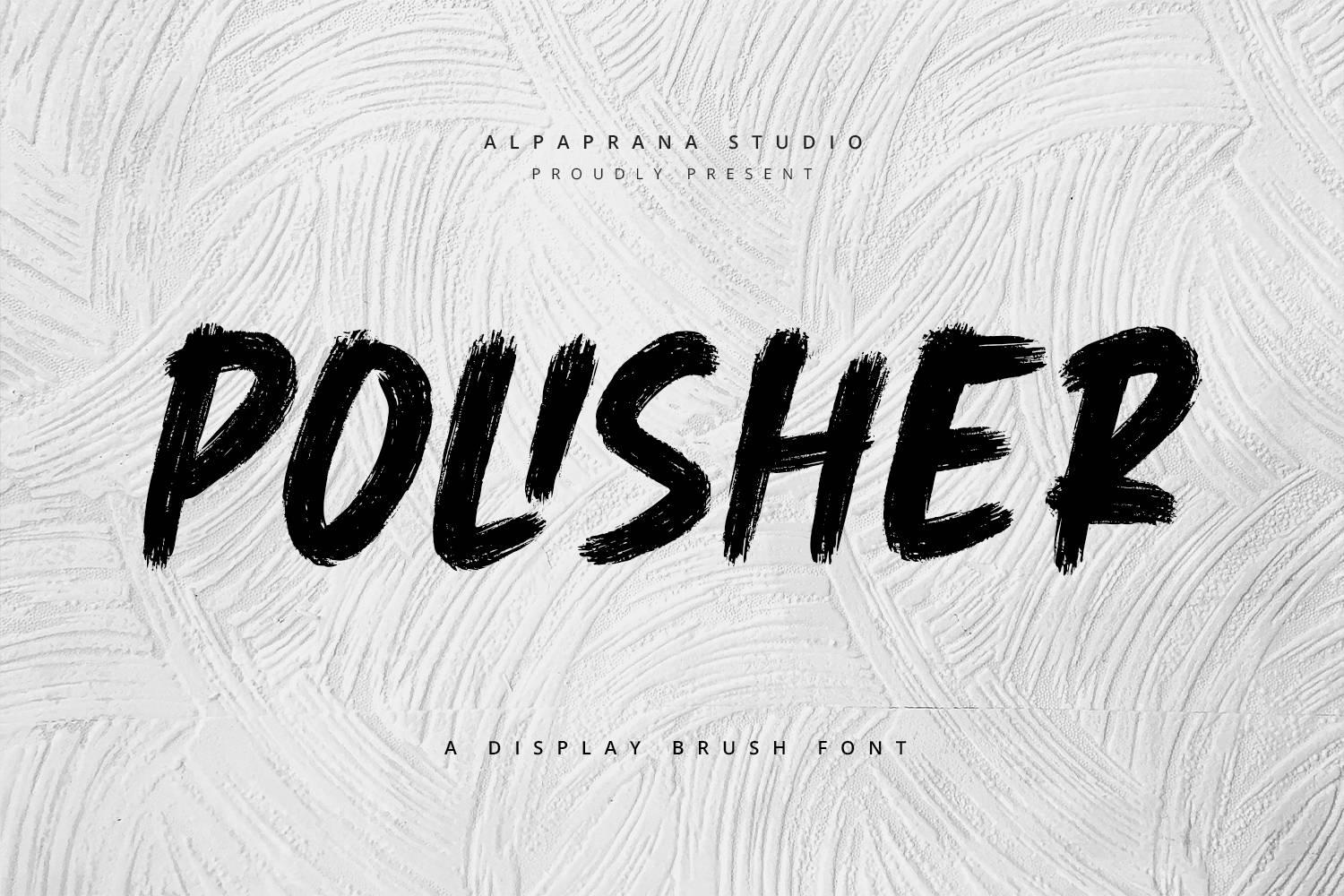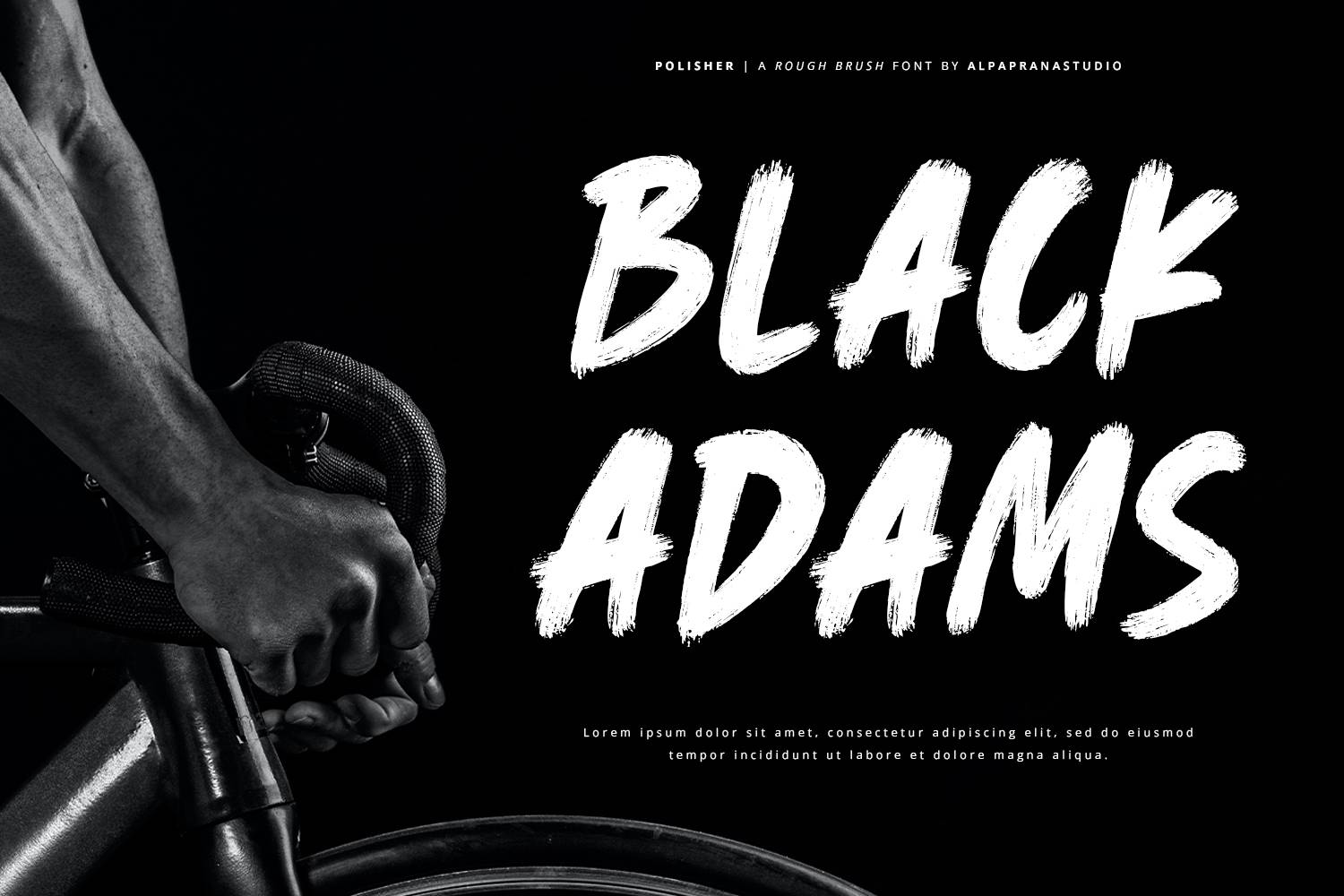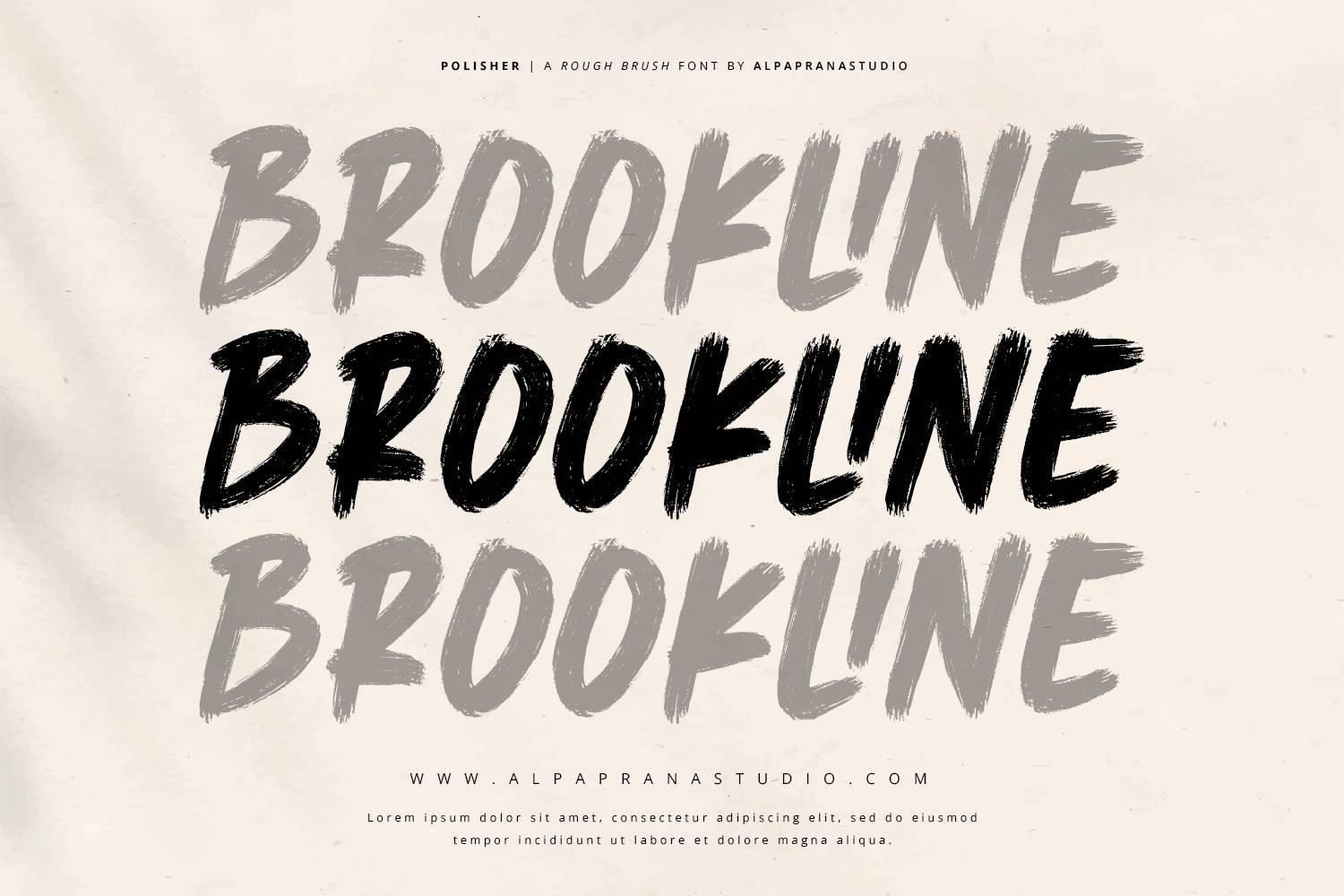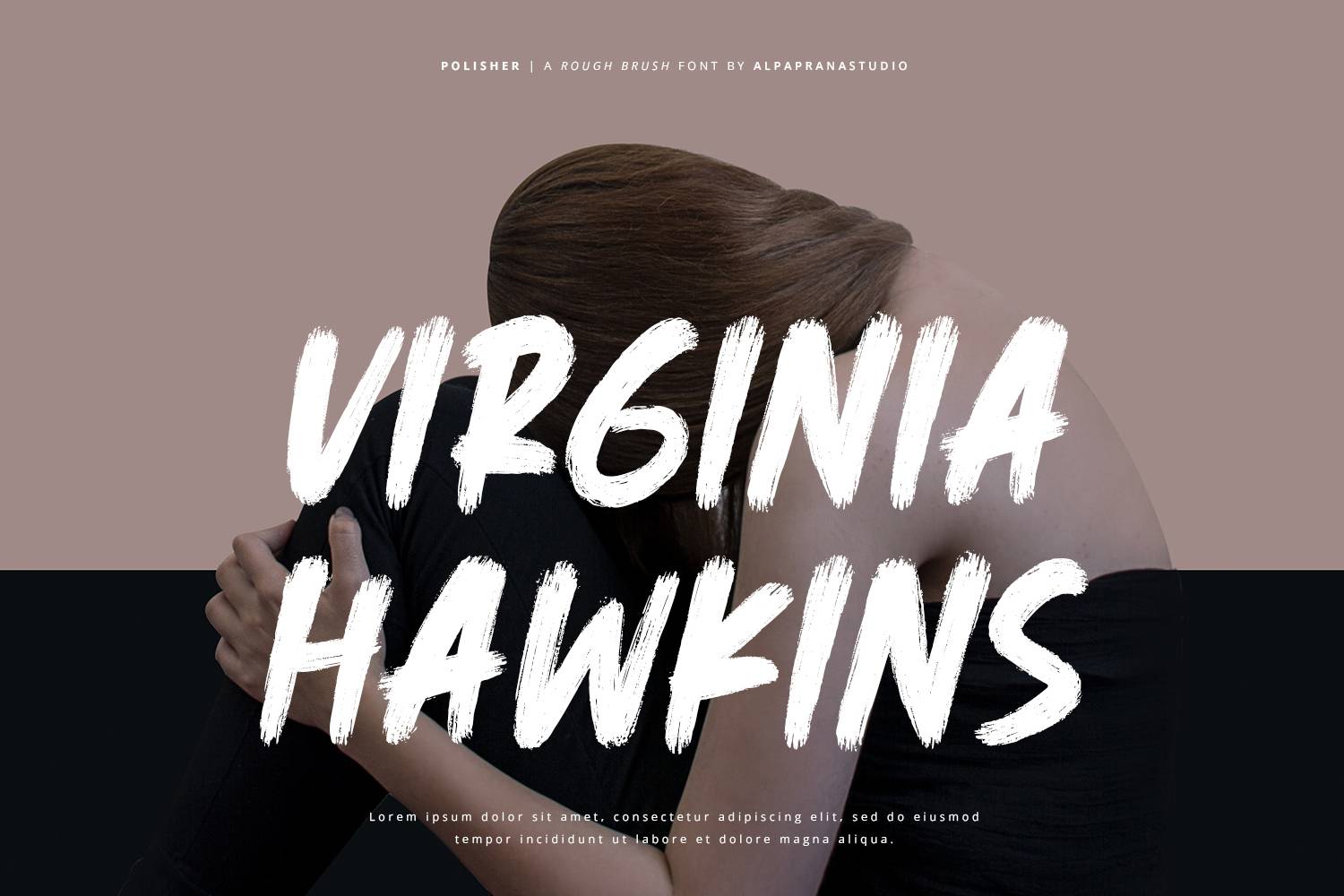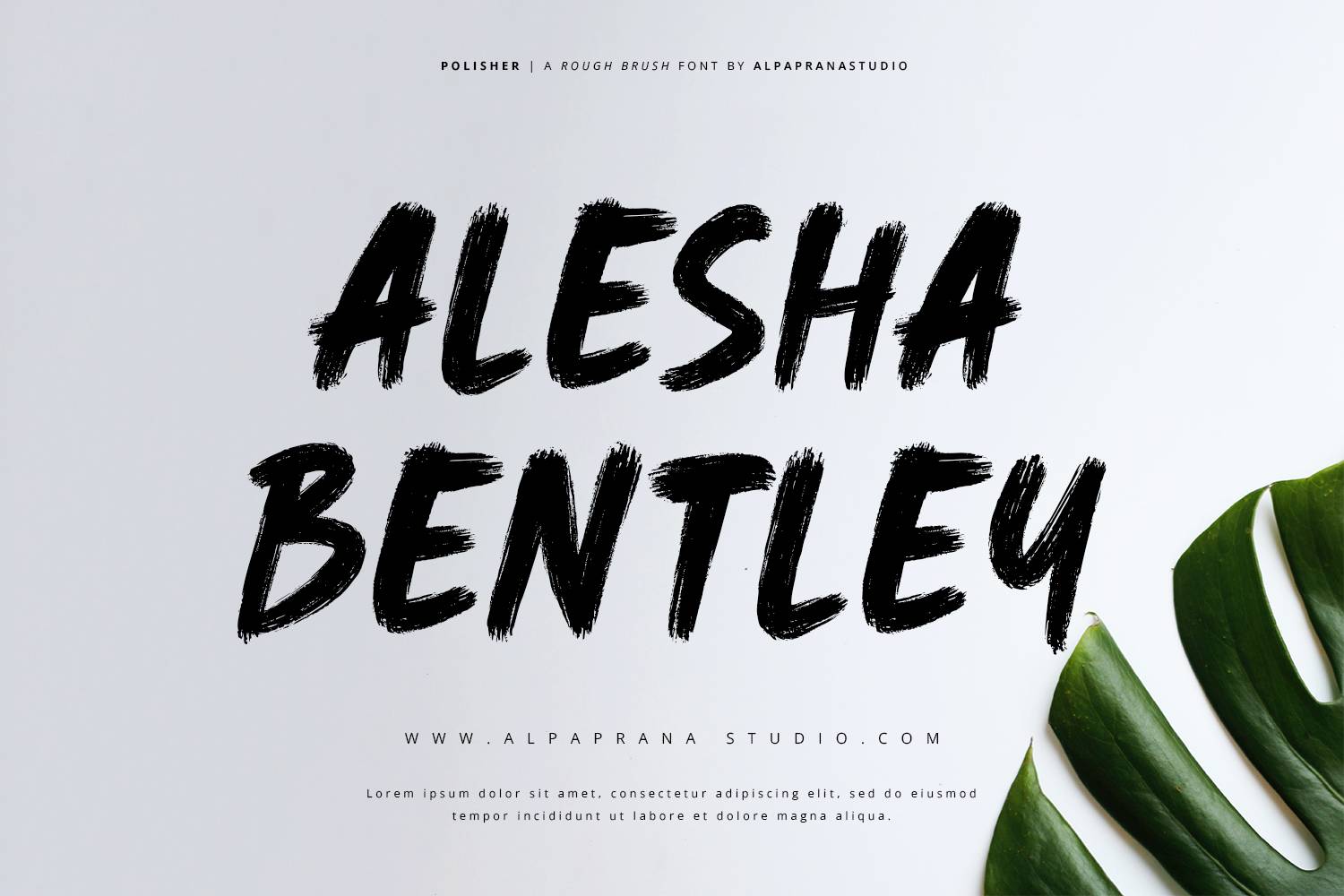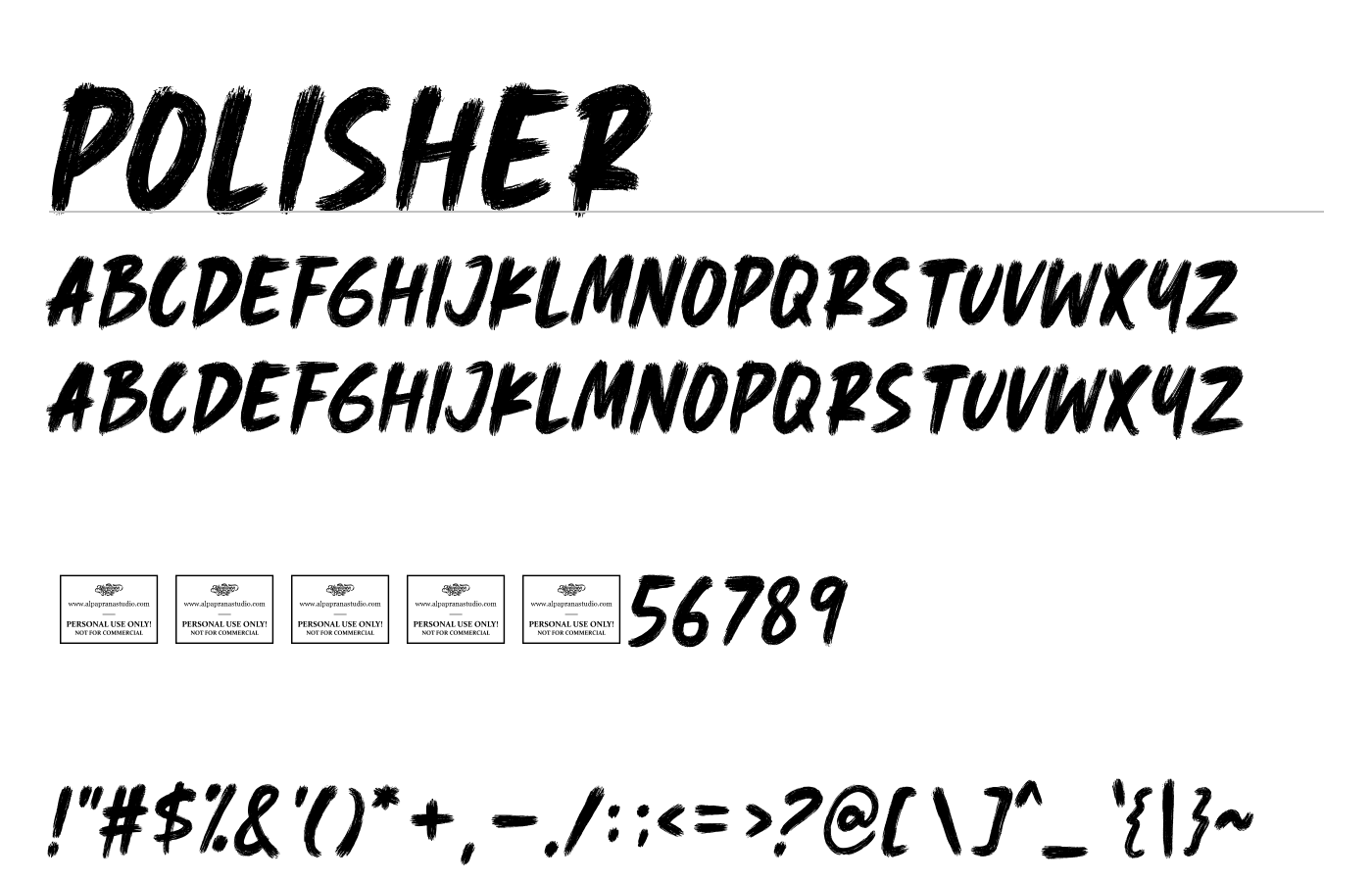
Polisher is a bold, brush-style sans serif font that exudes a lively, hand-painted energy with its textured, slightly irregular strokes. This all-caps design features a moderate height and dynamic rhythm, making it perfect for creating eye-catching headlines, logos, or posters that require a casual yet strong personality. Its spirited and fresh look suits creative, artistic, or urban brands seeking an authentic, handcrafted vibe.
Polisher Font
About Polisher Font